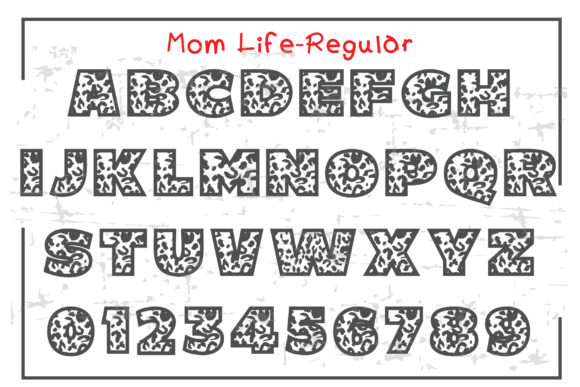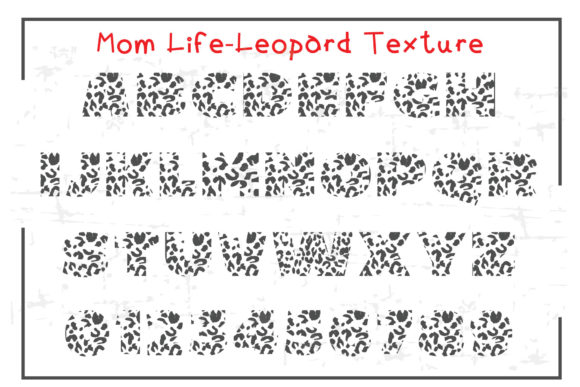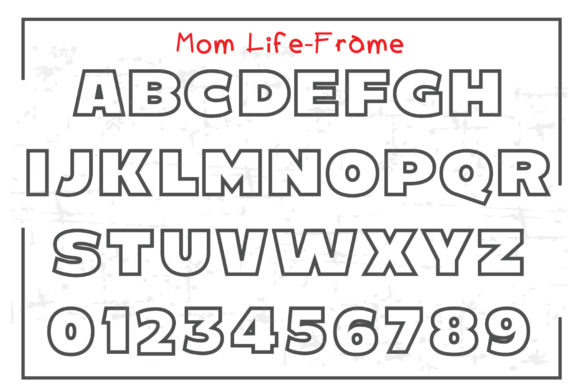
Introduction to Mom Life Font Font
Fonts play a crucial role in design, and the Mom Life Font font is a typeface that brings both character and versatility to any project. Whether you’re working on a branding project, a website, or a print design, the Mom Life Font font offers a unique style that can elevate your work.
Mom Life is a cute & friendly display font.
Get inspired by its incredibly youthful feel Add this chunky lettered font to your designs and notice how it makes them come alive.
Key Features of Mom Life Font Font
Why Choose Mom Life Font Font?
The Mom Life Font font is more than just a typeface – it’s a design tool that helps you communicate your message with style and clarity. Its unique character set and versatile design make it suitable for a wide range of applications, from elegant invitations to bold headlines.
With its carefully crafted letterforms and balanced proportions, the Mom Life Font font ensures readability and visual appeal across all mediums.
What makes Mom Life Font font special?
The Mom Life Font font stands out with its unique design, exceptional readability, and versatility across various design applications.